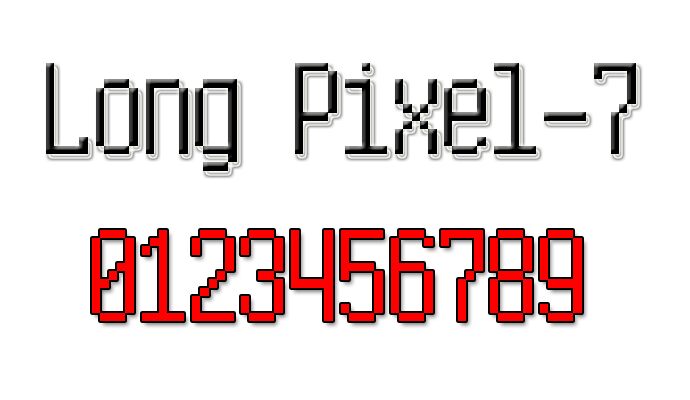
Long Pixel-7 by Style-7 is a free pixel font with extremely tall, slender letterforms and a spare electronic profile. Its long verticals dominate the design, broken by compact joins and occasional low crossbars that make the lettering resemble an early machine display.
Arcade title screens are its strongest setting, since the stretched proportions create an unusual futuristic scale. It also suits electronic music posters, technology branding, and science fiction packaging with a stark retro-digital character. Against circuitry, pixel-art landscapes, or interface graphics, the letters become part of the machinery.
Long Pixel-7